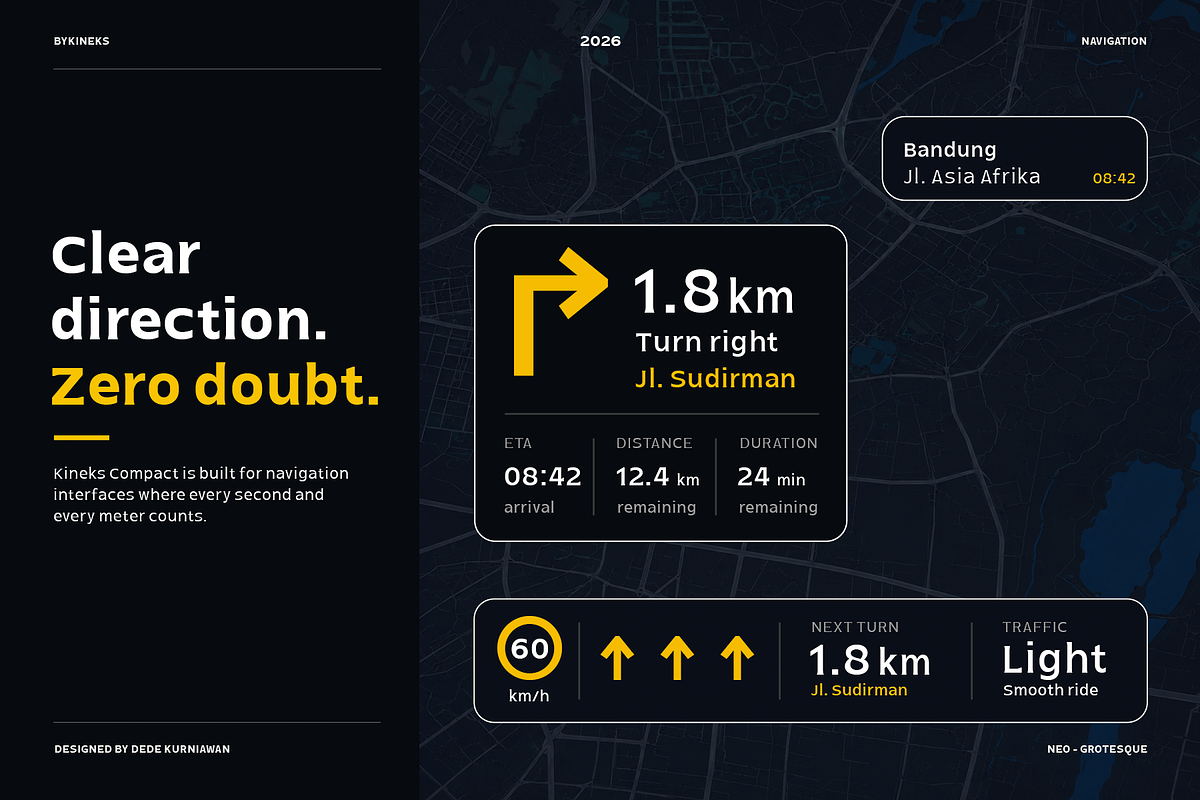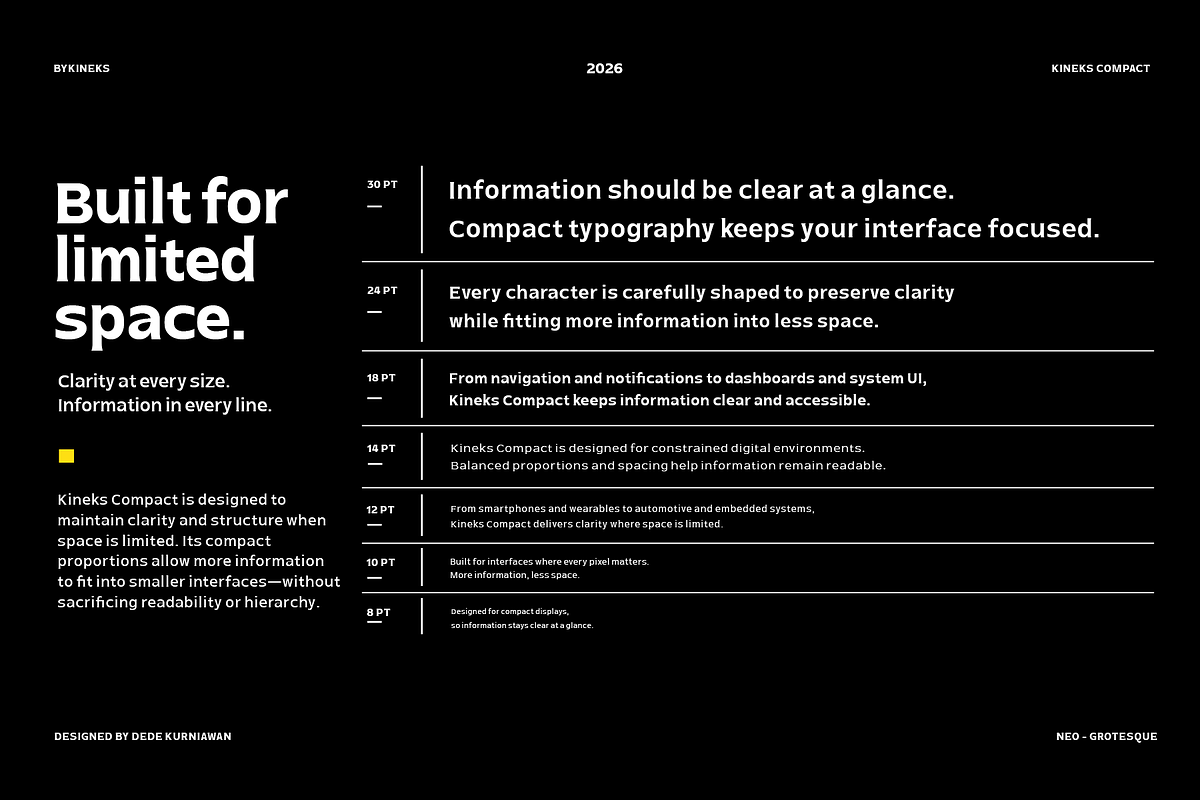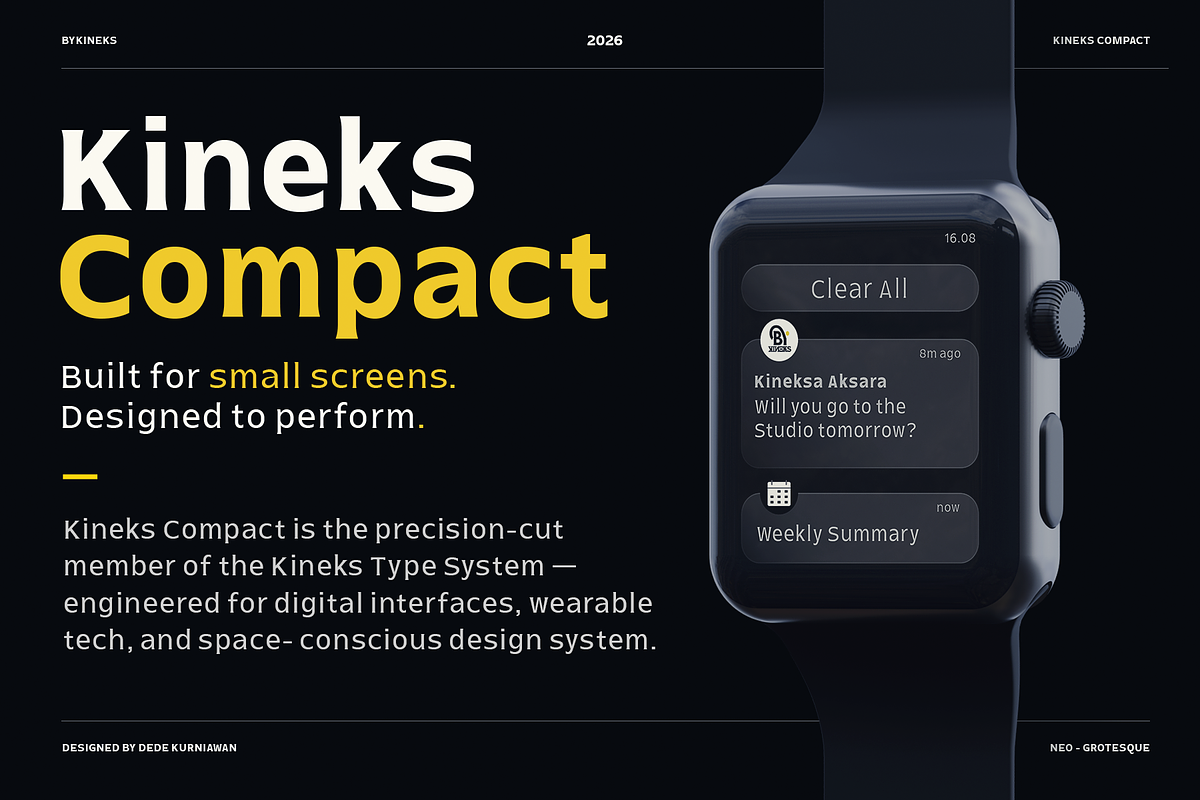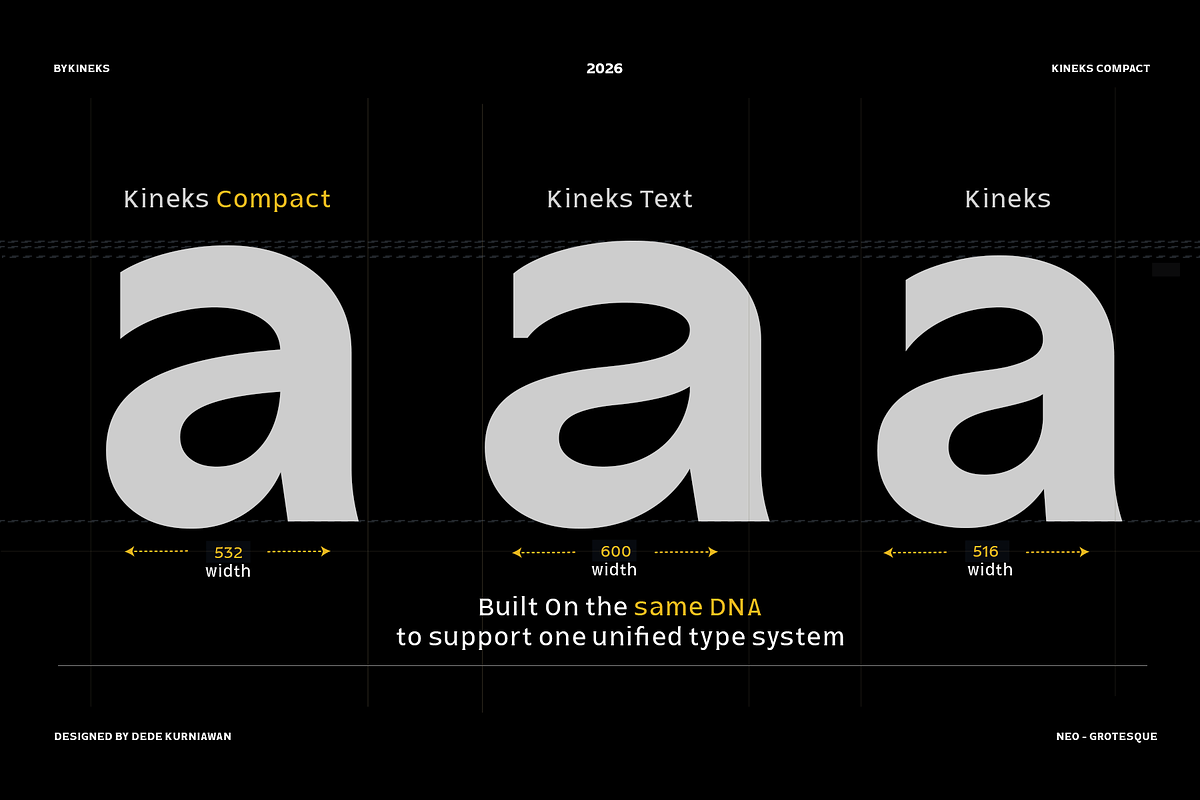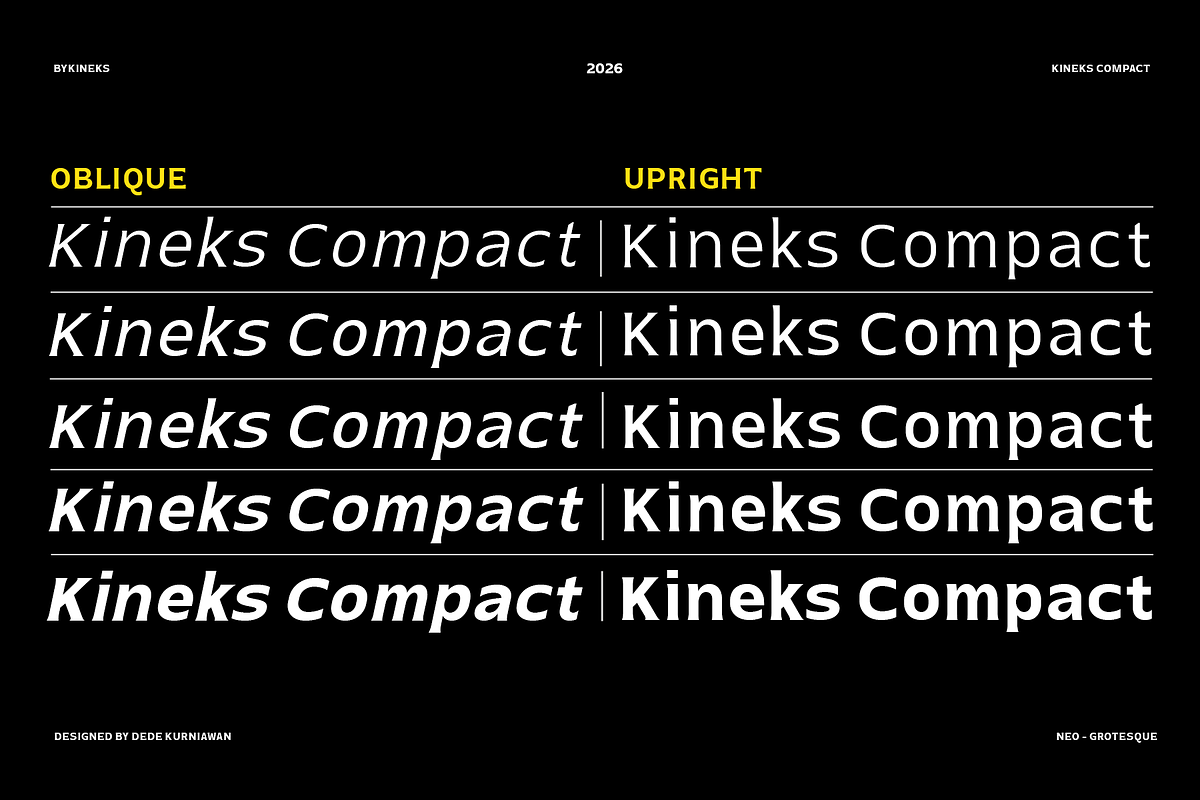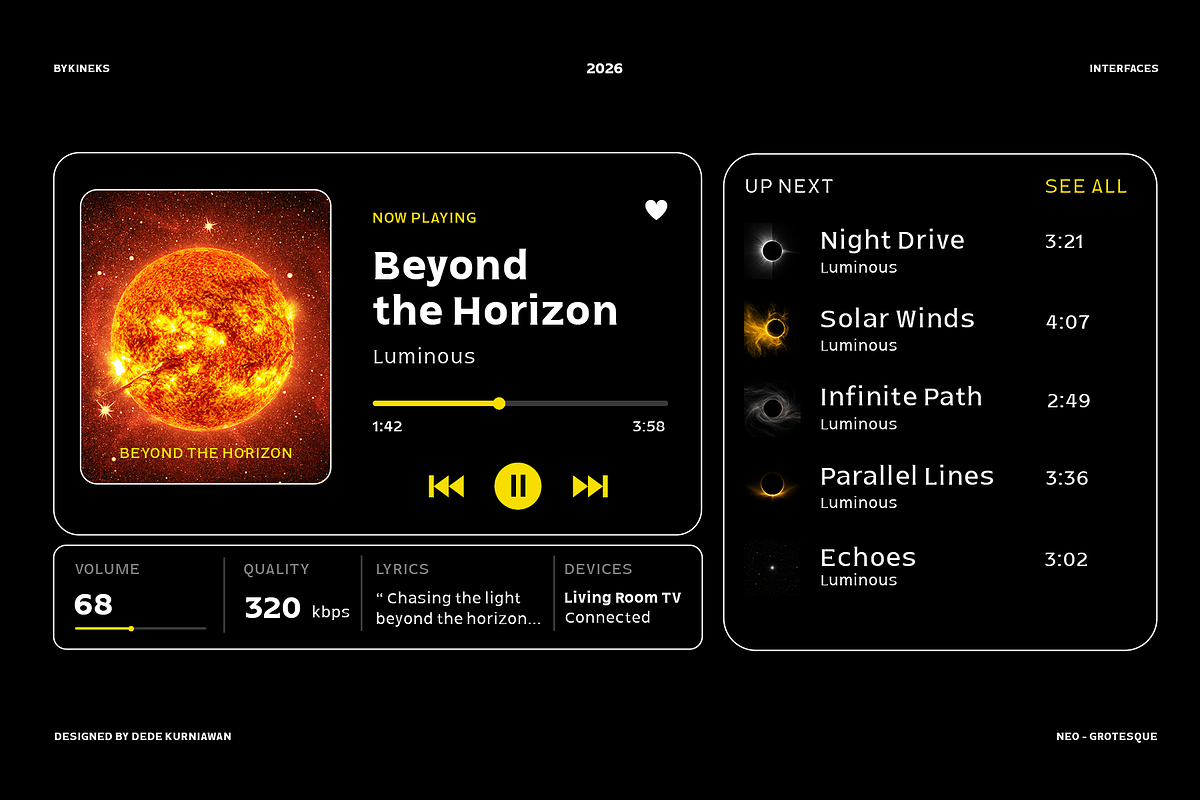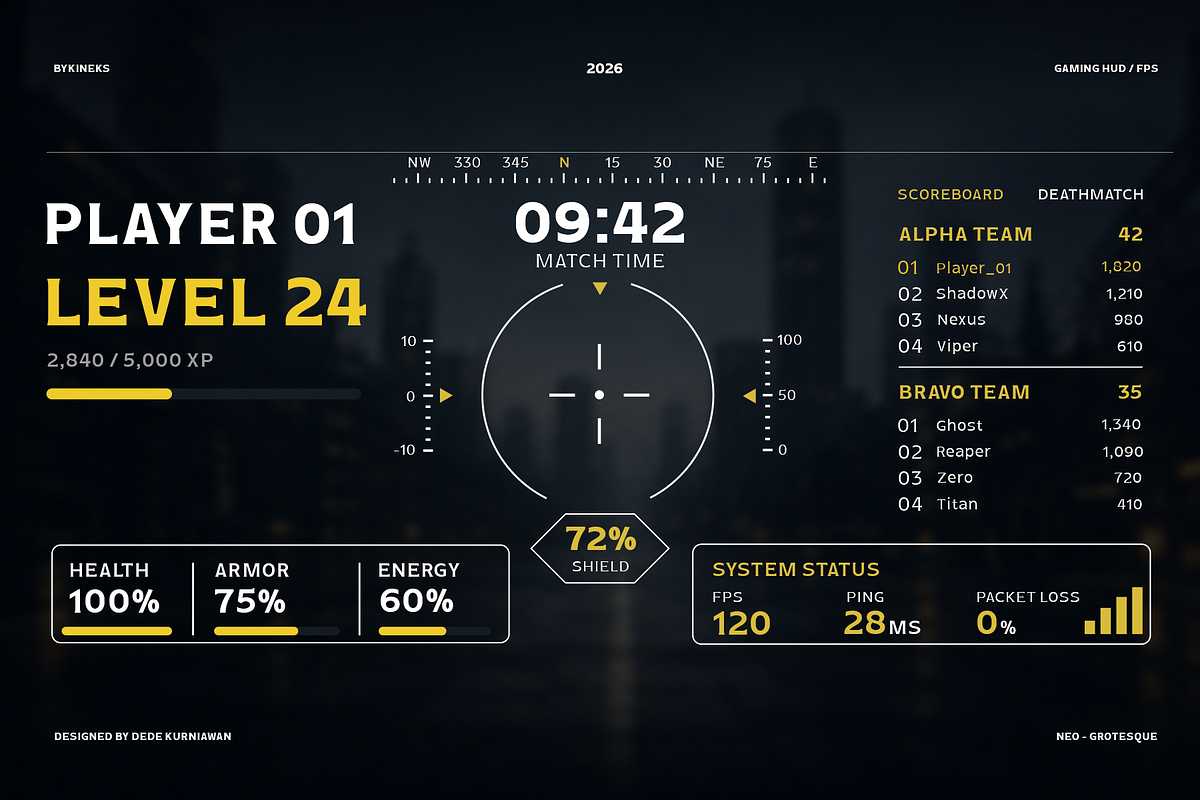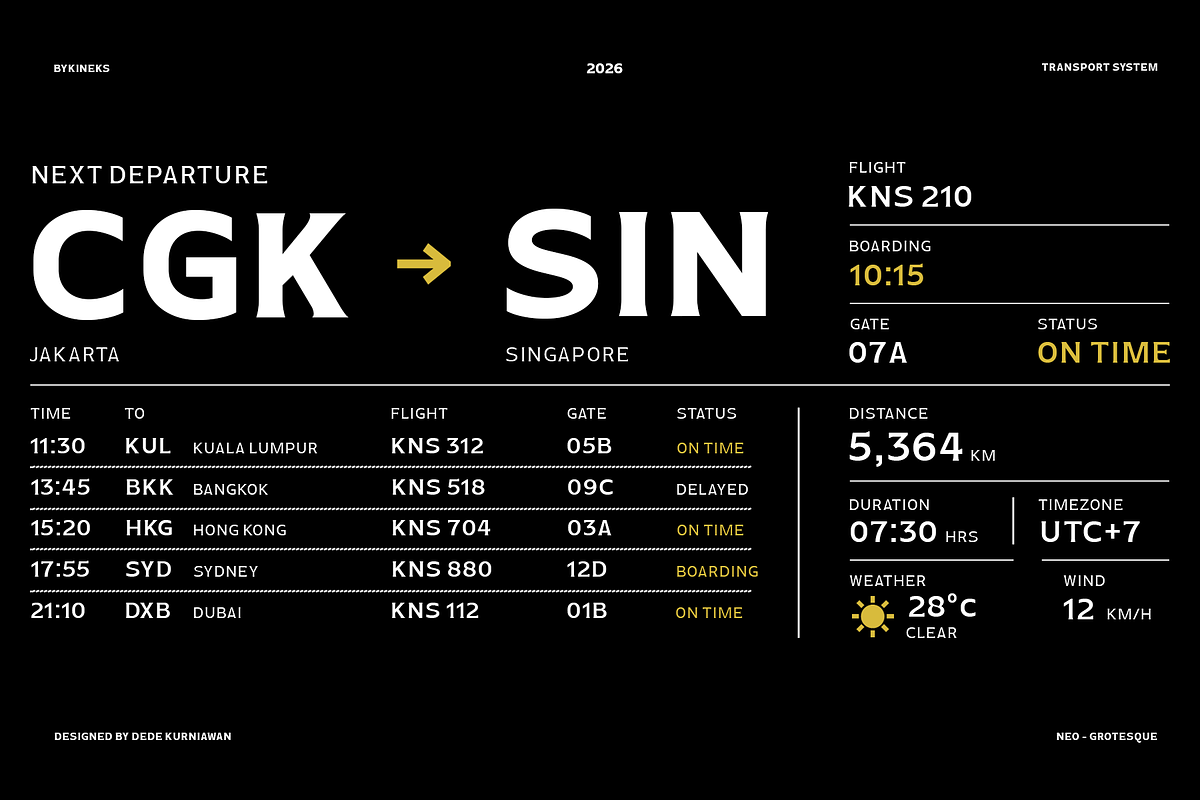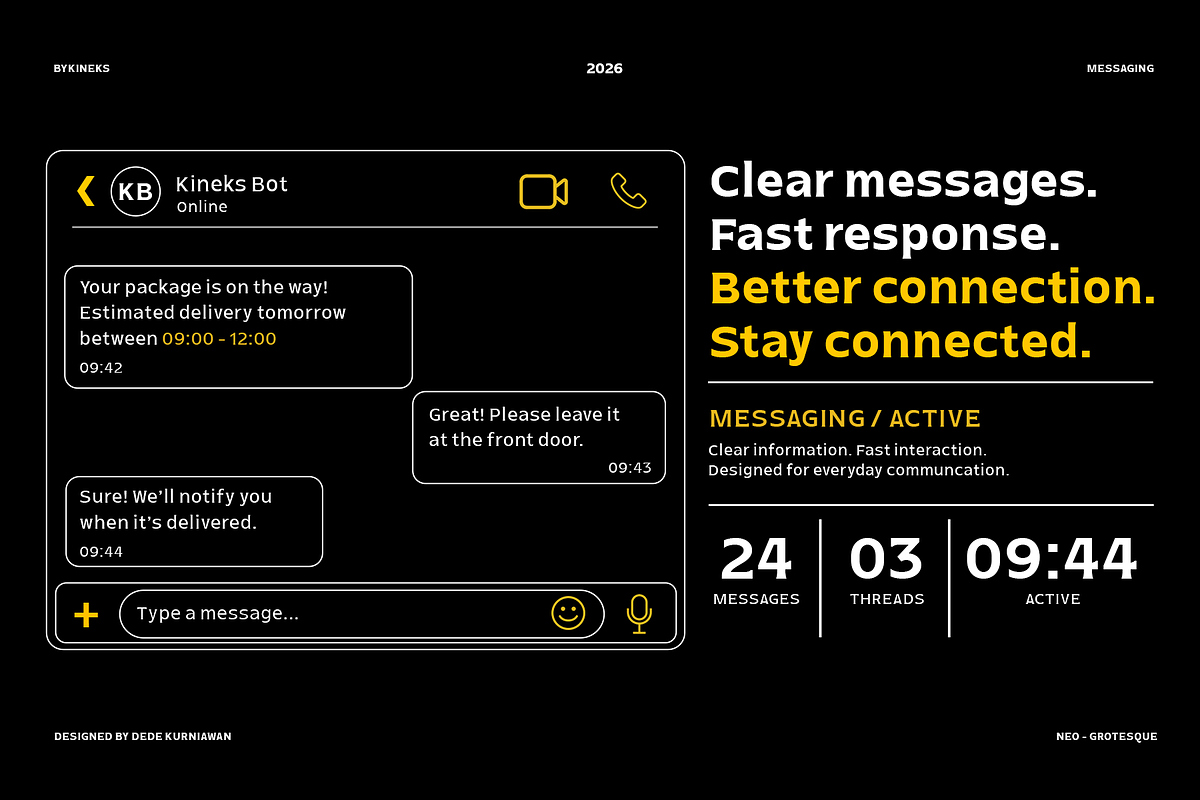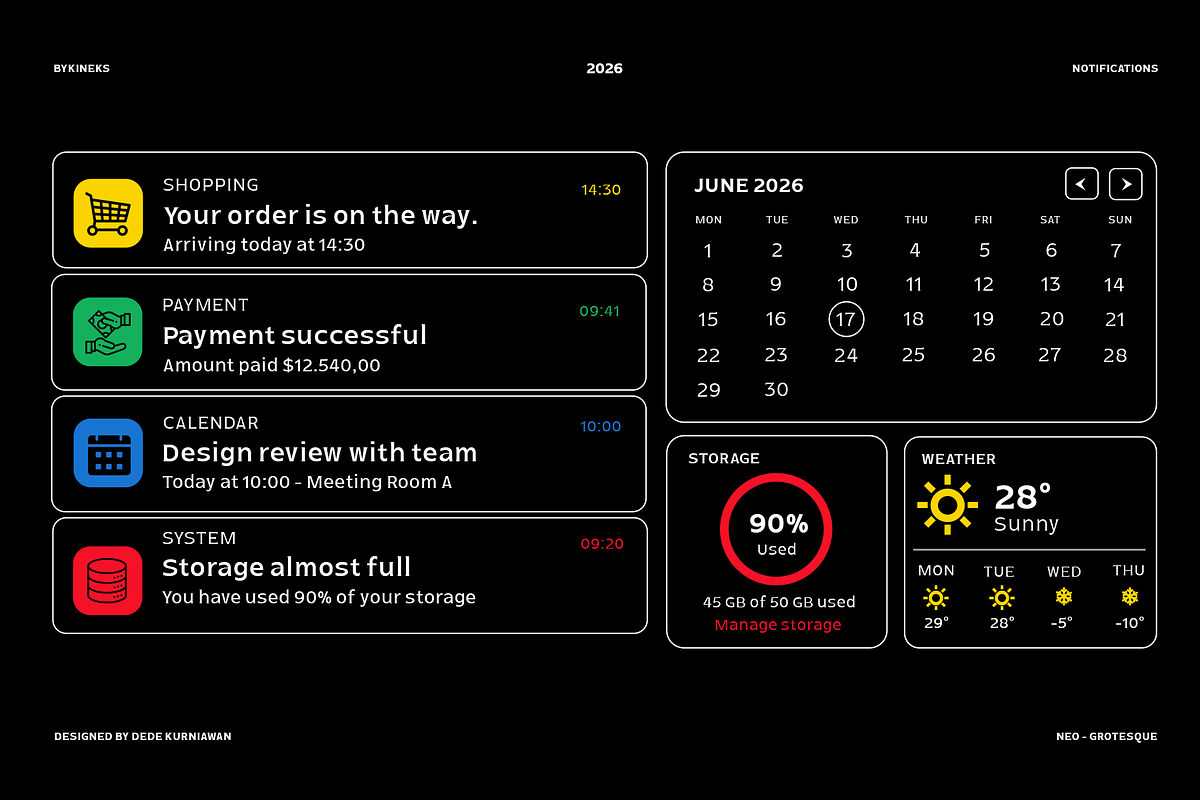
Kineks Compact | Neo-Grotesque
Kineks Compact is a neo-grotesque sans typeface designed for space-efficient digital interfaces, compact displays, and environments where information needs to remain clear within limited space. It is the compact member of the Kineks Type System, extending the visual DNA of Kineks into smaller and more information-dense applications.
Designed for interfaces, navigation systems, notifications, dashboards, wearable devices, automotive displays, and other digital environments, Kineks Compact features compact proportions, controlled spacing, clear letterforms, and a balanced x-height to maintain legibility while allowing more information to fit within constrained layouts.
Kineks Compact includes 10 styles from Light to Bold, with Upright and Oblique styles, providing a flexible range for interface hierarchy, labels, navigation, and system information. Its design is optimized for small display environments while retaining the structural character and consistency of the wider Kineks family.
As part of the evolving Kineks Type System, Kineks Compact complements Kineks Display and Kineks Text, with each family serving a distinct typographic role. Where Kineks Display is built for visual impact and Kineks Text is optimized for extended reading, Kineks Compact is designed for clarity, density, and limited-space applications.
10 styles from Light to Bold
Upright and Oblique styles
Neo-grotesque sans design
Compact proportions for space-efficient typography
Designed for digital interfaces and small displays
Suitable for UI/UX, navigation, dashboards, notifications, and wearable devices
Supports 90+ languages
Designed as part of the Kineks Type System